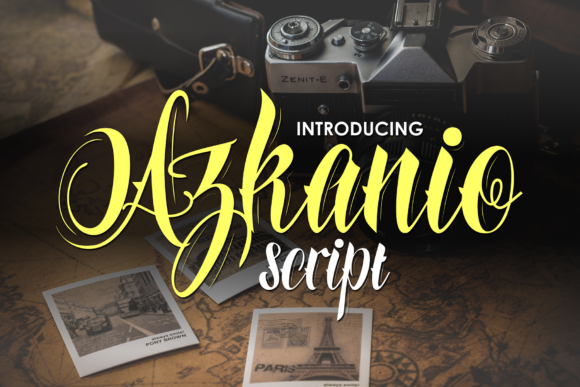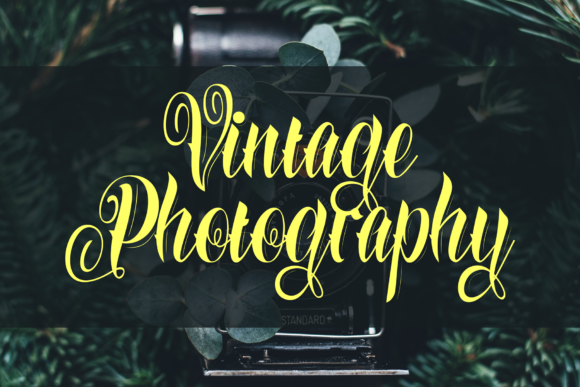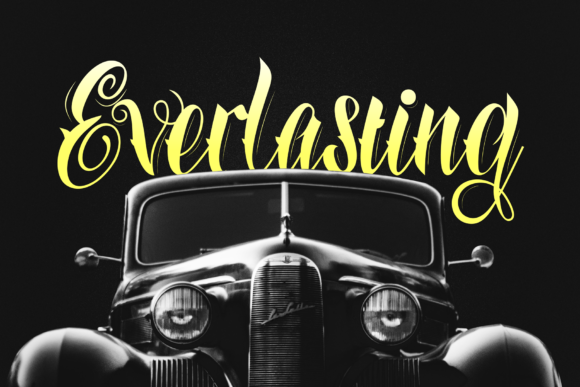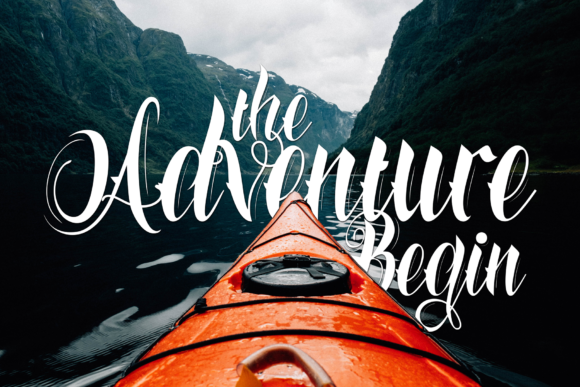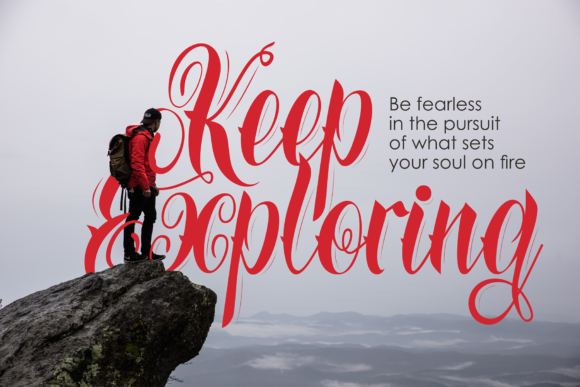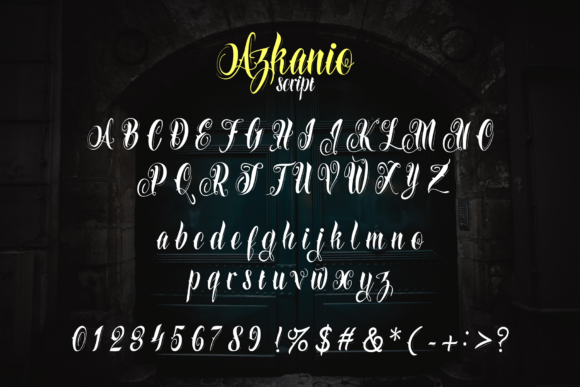
Azkanio Script Font
About Azkanio Script Font
Azkanio is a sweet and charming script with a unique style. Get inspired by its bold feel, and turn any design idea into a true standout with this bold script!